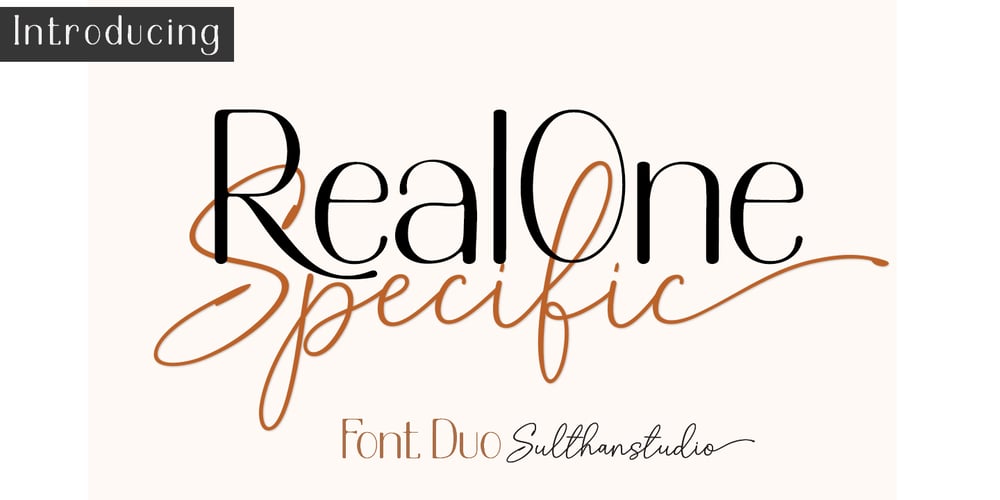
Real One Specific
Real One Specific font
Real One Specific Font Family was designed by Nasrullah and published by Sulthan Studio. Real One Specific contains 2 styles and family package options. Real one specific! This font duo comes with a script typeface as well as a sans serif typeface. The two typefaces complement each other really well with beautiful, eye-catching handwritten nuances.This font is very light and can also make your job stand out.